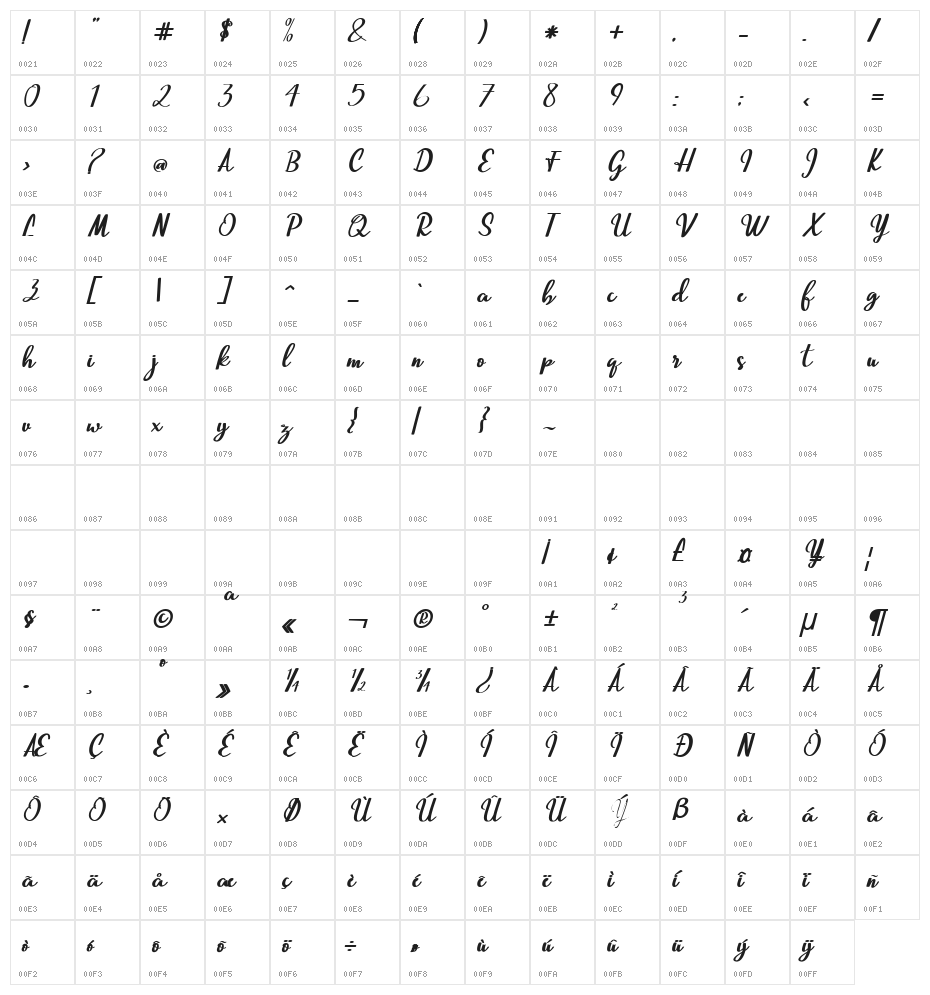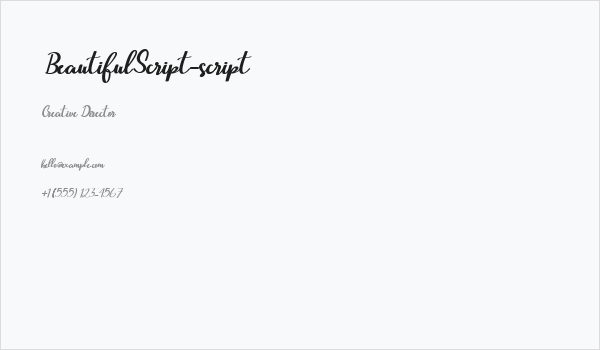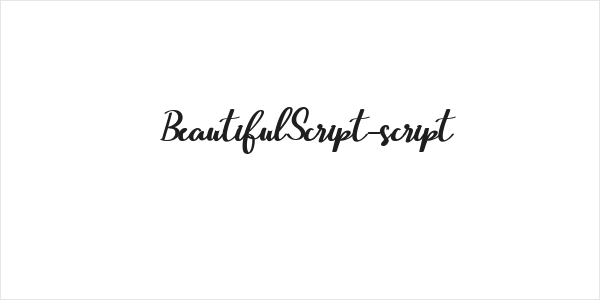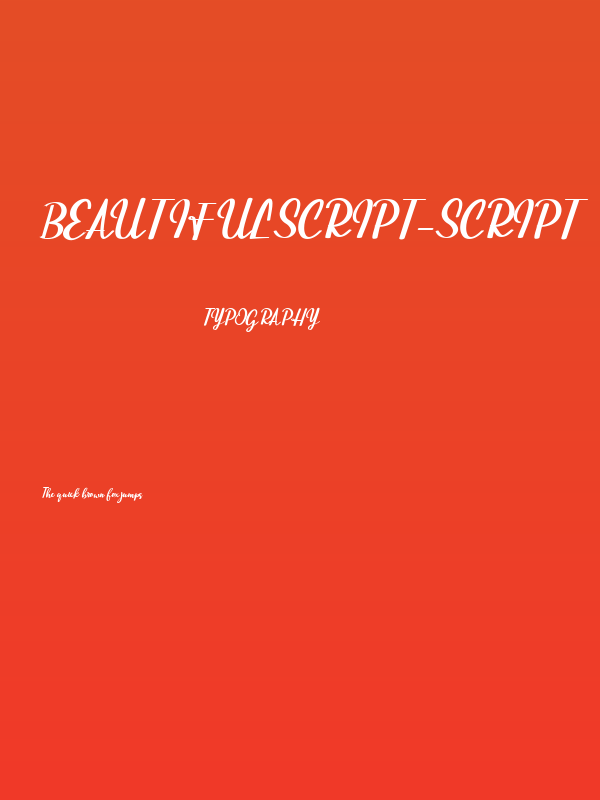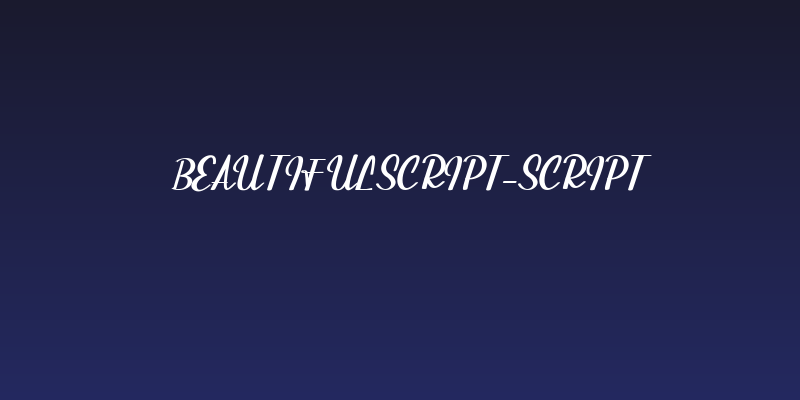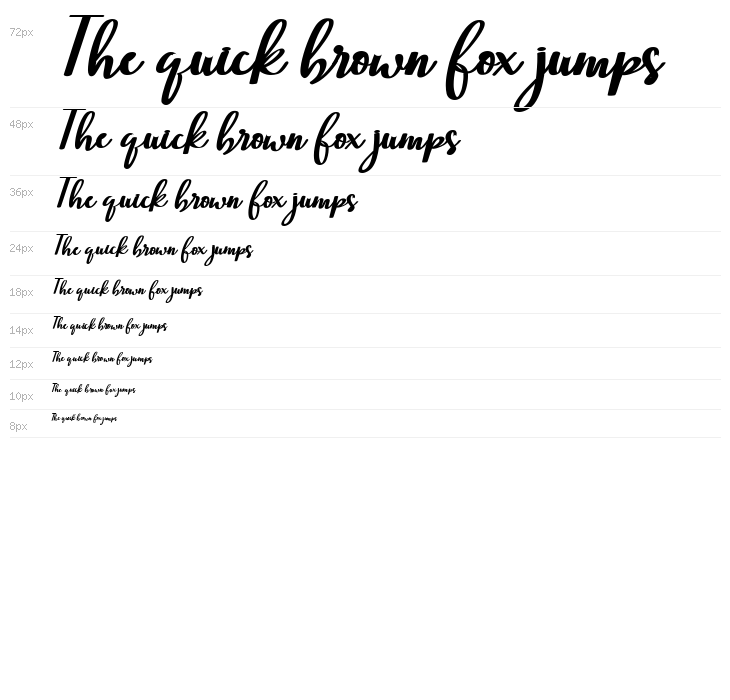
BeautifulScript-script Font
BeautifulScript-script Description
This elegant script font features a fluid and graceful design, characterized by its smooth, flowing lines and cursive style. The uppercase letters are bold and slightly slanted, giving a sense of movement and sophistication. The lowercase letters maintain a consistent flow, with delicate loops and curves that enhance its handwritten appeal. Numbers are clear and legible, while special characters blend seamlessly with the overall aesthetic. This font exudes a sense of elegance and charm, making it ideal for projects that require a personal touch.
| Overall Style | Elegant, Handwritten |
| Proposed Projects | Ideal for wedding invitations, greeting cards, branding, and elegant packaging designs. |